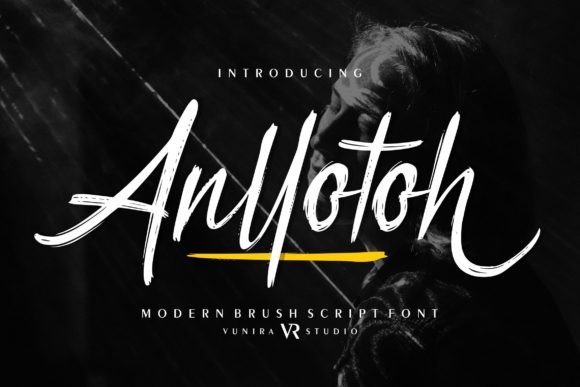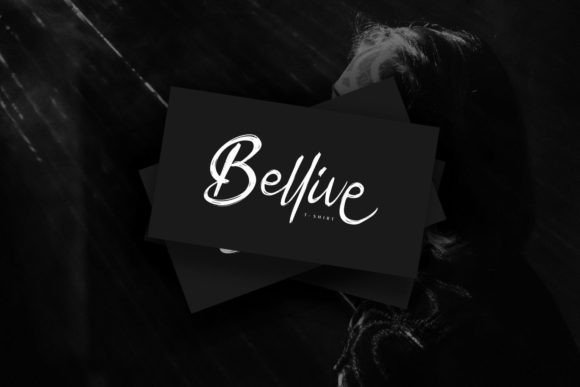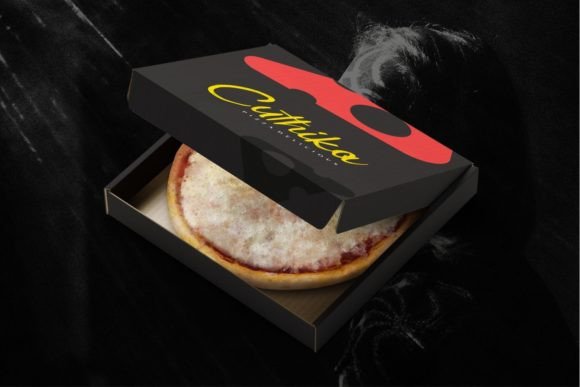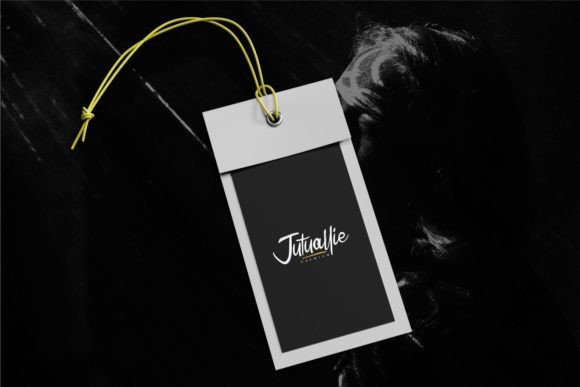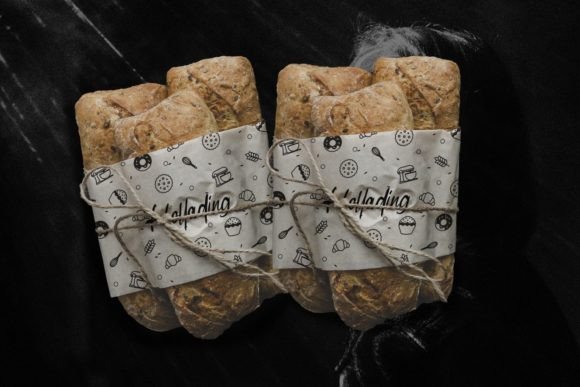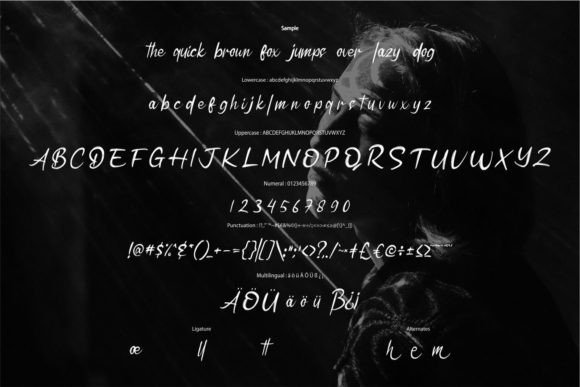
Discover the Magic of Handwritten Text: Introducing Anllotoh Font
Have you ever been stuck on a design project, trying to convey a sense of elegance and sophistication? You know, that feeling when you’re pouring over fonts, searching for the perfect match to elevate your brand or message. I’m sure you’ve been there too! Sometimes, all it takes is one special font to make your design shine.
Enter Anllotoh Font, a modern script font with a calligraphy style that will add a touch of sophistication to any project. Whether you’re creating invitations, greeting cards, branding materials, or business cards, Anllotoh Font is the perfect choice to make your message stand out. For designers, this font is a valuable addition to their toolkit, offering a unique and versatile option to express their creativity.
Anllotoh Font Key Features
- Unique Characteristics: Anllotoh Font features a unique blend of modern and vintage elements, with intricate details and flourishes that add a touch of elegance and sophistication to any design.
- Character Set: The font includes a comprehensive character set, including Latin, Cyrillic, and Greek alphabets, as well as a range of punctuation marks and symbols.
- Stylistic Sets: Anllotoh Font offers a range of stylistic sets, allowing designers to create unique and varied typography with a single font file.
Anllotoh Font Review
As a designer, I was excited to dive into the world of Anllotoh Font. Here’s my honest review.
- The font has a unique, hand-drawn feel that adds a touch of personality to any design.
- It’s highly customizable, with a wide range of styles and weights to choose from.
- The font is highly legible, making it perfect for body text and longer pieces of content.
- The Anllotoh Font has a good balance of modern and vintage elements, making it suitable for a wide range of design projects.
- The font may not be suitable for titles or headlines, as it can appear too casual.
- The font’s unique feel can be overwhelming in certain design contexts.
- The font may not be as versatile as other fonts, particularly in terms of its use in digital design.
Overall, I think the Anllotoh Font is a great addition to any designer’s toolkit. While it may have some limitations, its unique feel and high level of customizability make it a great choice for designers looking to add some personality to their work.
Getting the Most Out of Anllotoh Font
To get the most out of the Anllotoh font, try using it in bold or italic styles to add emphasis to your text.
Experiment with different font sizes to create visual hierarchy and balance in your design.
Use Anllotoh font in combination with other fonts to create a unique and visually appealing design.
Anllotoh font is ideal for:
Titles and headings to add a touch of elegance and sophistication.
Body text to create a clean and modern look.
Branding and logos to create a unique and recognizable identity.
Alternatives to Anllotoh Font for Designers
Montserrat is a sans-serif typeface designed by Julieta Ulanovsky. It is a popular choice for digital interfaces and is known for its clean and modern aesthetic. Use Montserrat for digital products, such as websites and mobile apps, where a clear and readable font is essential.
Montserrat is similar to Anllotoh Font in its modern and clean design, but it has a more geometric and structured feel. While Anllotoh Font is more rounded and friendly, Montserrat is ideal for more formal and professional applications.
Lato is a sans-serif typeface designed by Łukasz Dziedzic. It is a highly versatile font that works well in both digital and print applications. Lato is known for its friendly and approachable feel, making it perfect for branding and marketing materials.